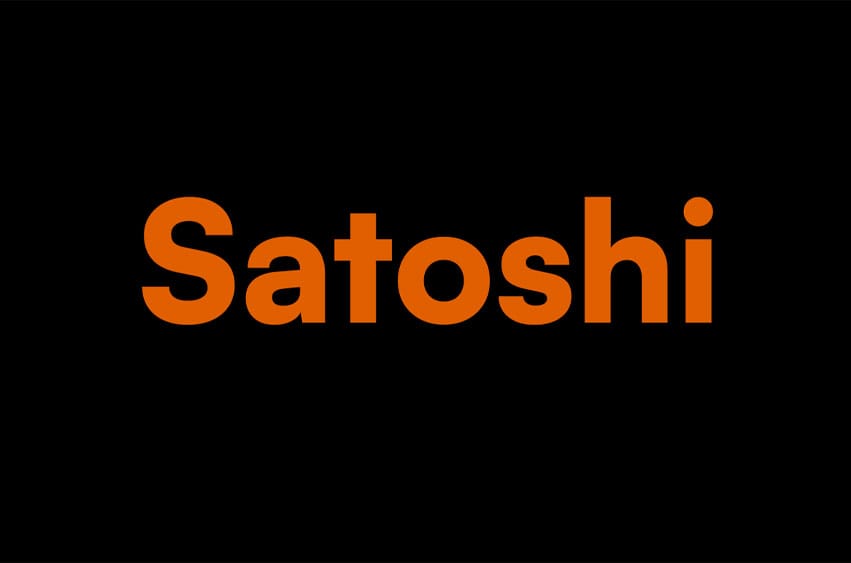
Satoshi Font can be described as an elegant and contemporary sans serif font that’s ideal for logotypes, brand packaging, quotes, packaging music poster covers, T-shirt cover books, and customized designs.